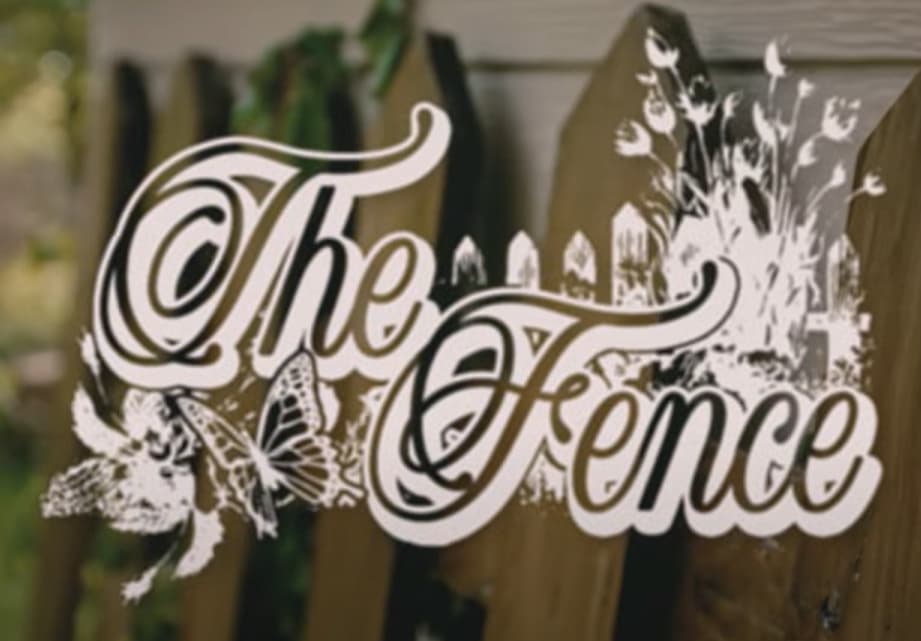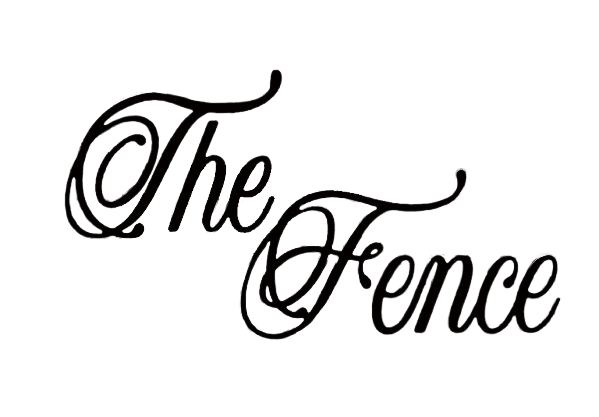
Can you identify this font please? I’ve tried so many different ways and have been unsuccessful.
There are sooooo many script fonts. Edwardian Script is the closest I know of for this. It’s not quite as overly flourished but it’s mighty close. Maybe it will help ![]()
I suspect the two uppercase letters don’t belong to the lowercase font since they don’t match the lowercase and aren’t nearly as well designed.
Yes B, and the slant on the upper and lower case doesn’t match. That tells me two fonts were used.
I’m gonna go out on a limb and say the caps aren’t a font at all.
Even for a script font they look too “hand drawn.”
The caps kinda remind me of Balmoral, which is one of my favorite script fonts. Except not in cut vinyl. No. Not fun in cut vinyl.